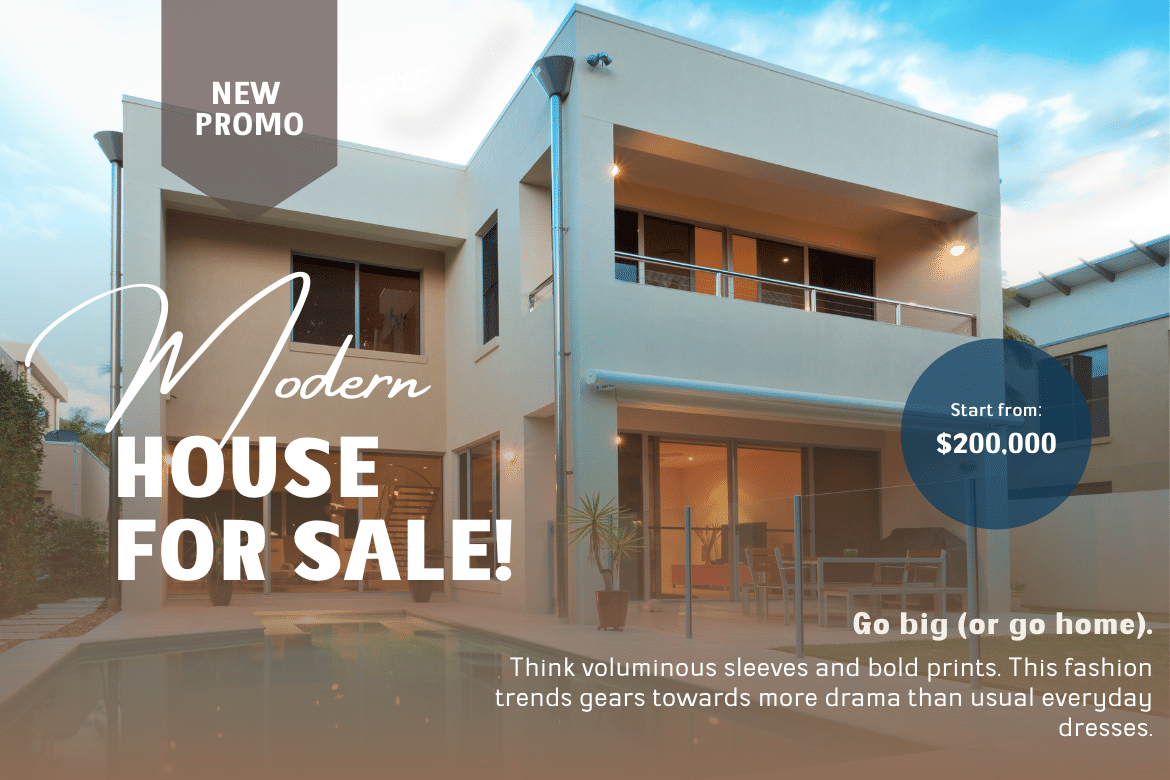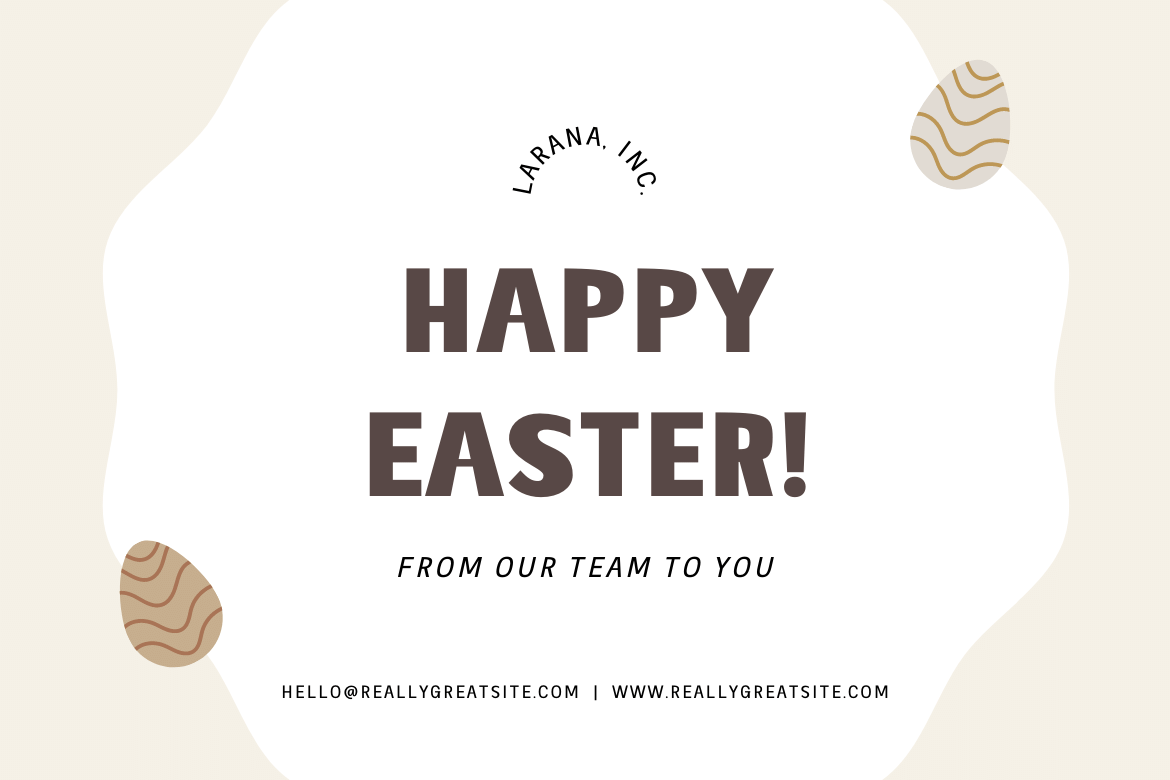
Genia Font
Genia Sans Serif Font
This font is lovely and charming. It has a strong, uncompromising style with regulated letterforms and a contemporary edge. Each typeface in the family can stand alone, be lively, and forceful in its own right, and there’s a balance between harsh lines and gentle curves. This typeface also comes with 16 different families to help you create outstanding projects.
of course, your various design projects will be perfect and extraordinary if you use this font because this font is equipped with a font family, both for titles and subtitles and sentence text, start using our fonts for your extraordinary projects.